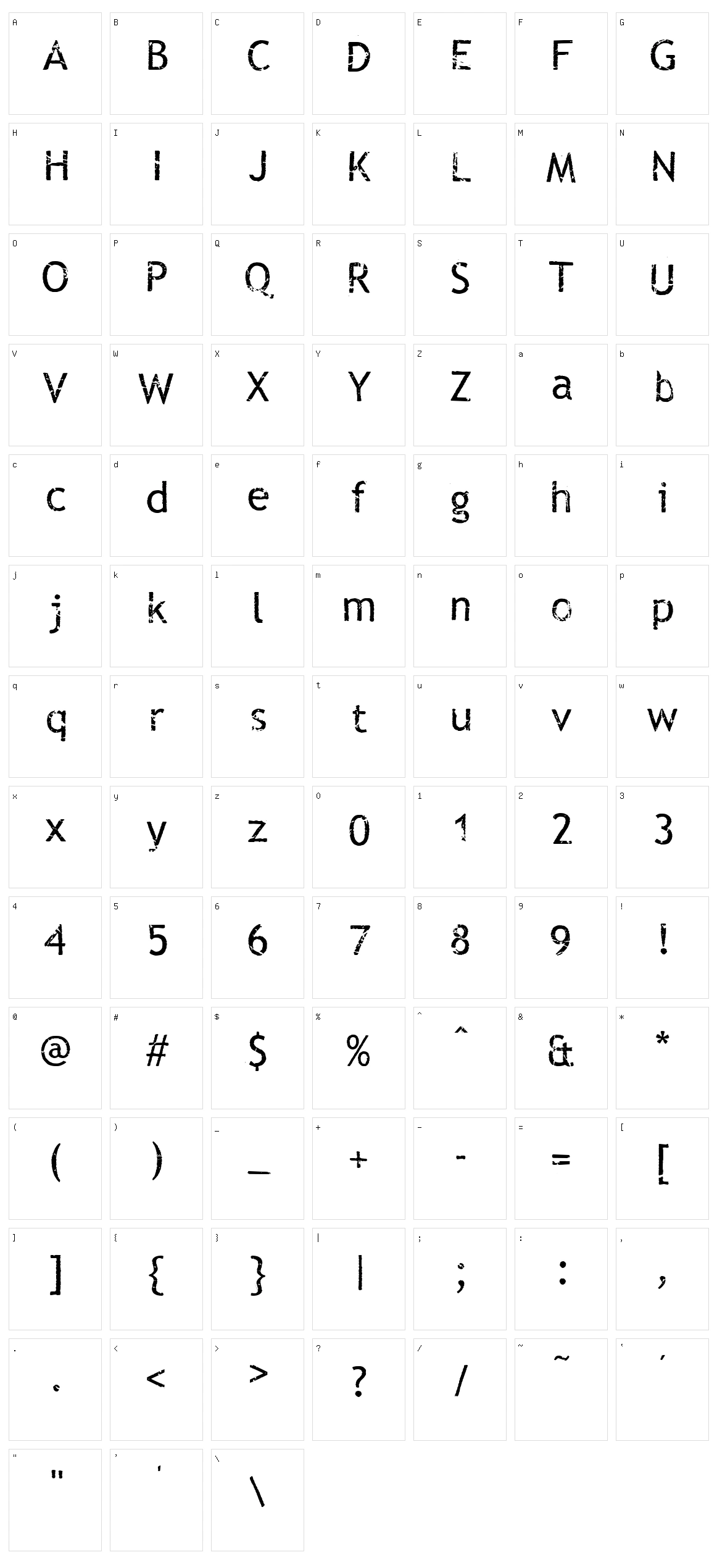
The free font Rub This ! is carefully designed by Vinterstille TypeFaceLab, showcasing a thoughtful balance of creativity and usability and falls under the Eroded font style. When you download the ZIP file, it contains only 71.05 KB of font files, making it lightweight and quick to download. Please review the license details below to understand permitted usage and distribution rights. If license information is not available, we recommend using this font for personal projects only or contacting the author directly for commercial usage permissions.